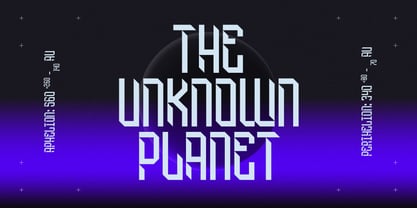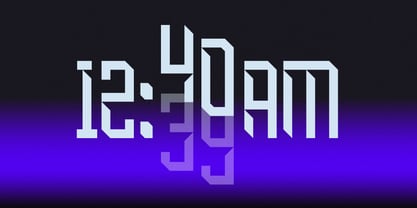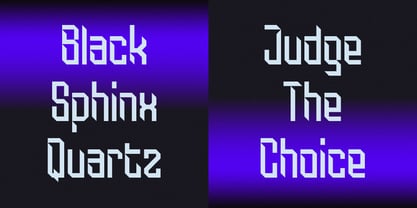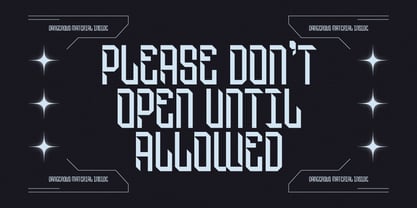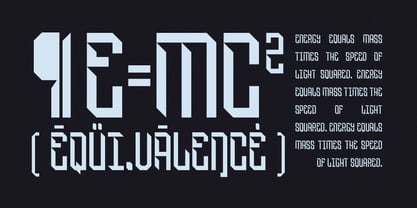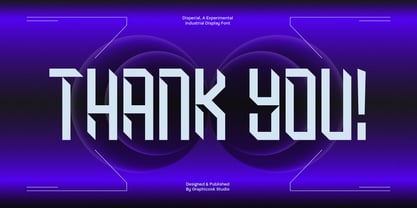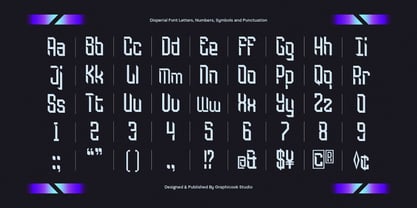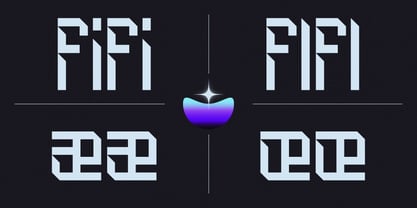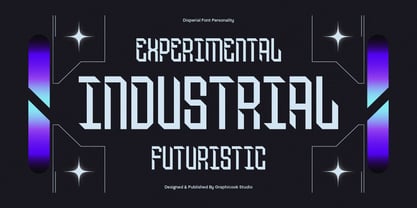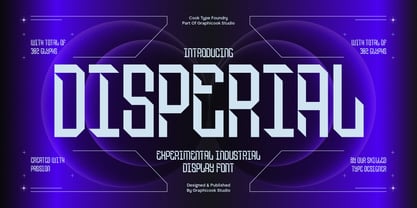
Cook Disperial
by Graphicook Studio
The Cook Disperial Font Family was designed by Gumilar Febriansyah and published by Graphicook Studio. Cook Disperial contains 1 styles. More about this family
Introducing Disperial! An experimental, industrial-inspired font with a futuristic style. This font is perfect for headline, cover album, music festival branding. It is perfect for headlines, logotypes, magazines, packaging, quotes, movies, games, cover albums, book covers, and flyers, it's a perfect solution for creating eye-catching designs that stand out in any context.
Designers: Gumilar Febriansyah
Foundry: Graphicook Studio